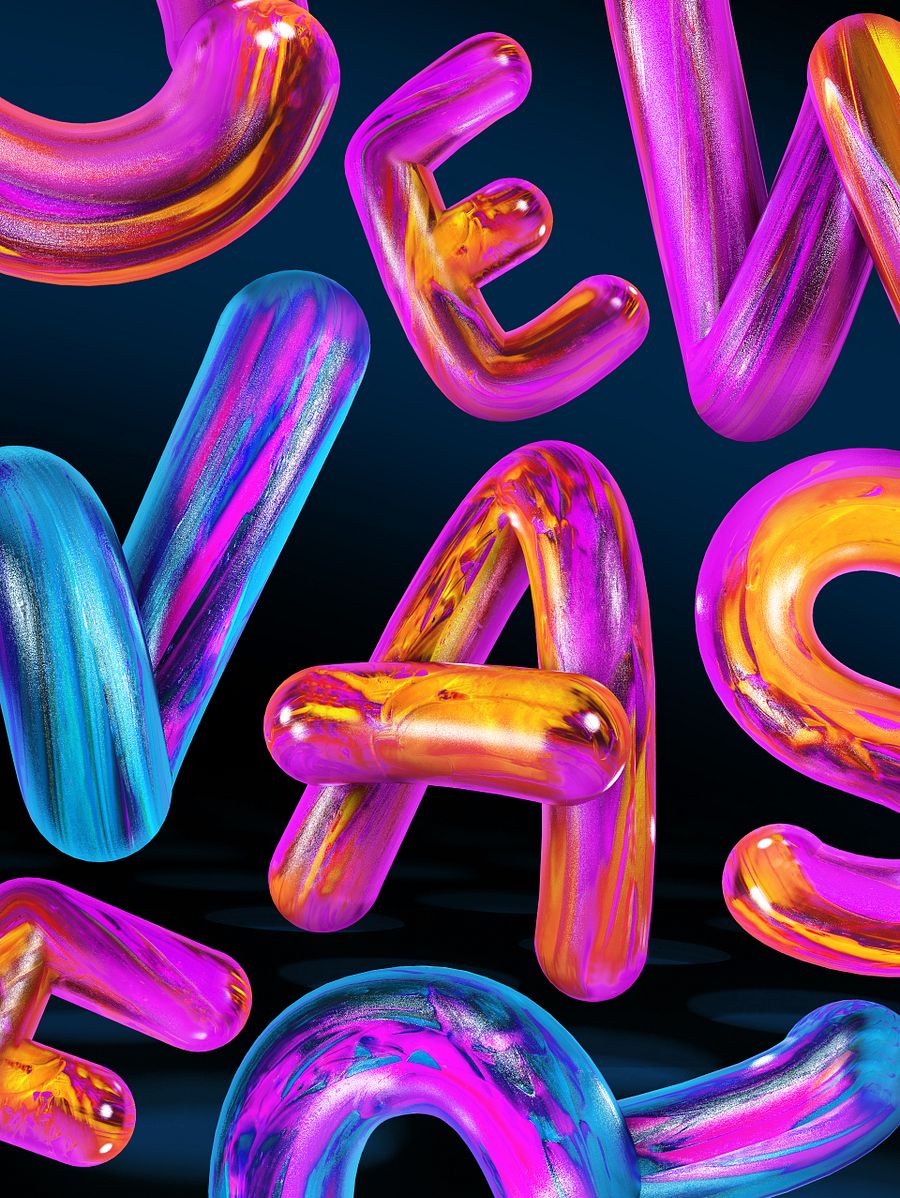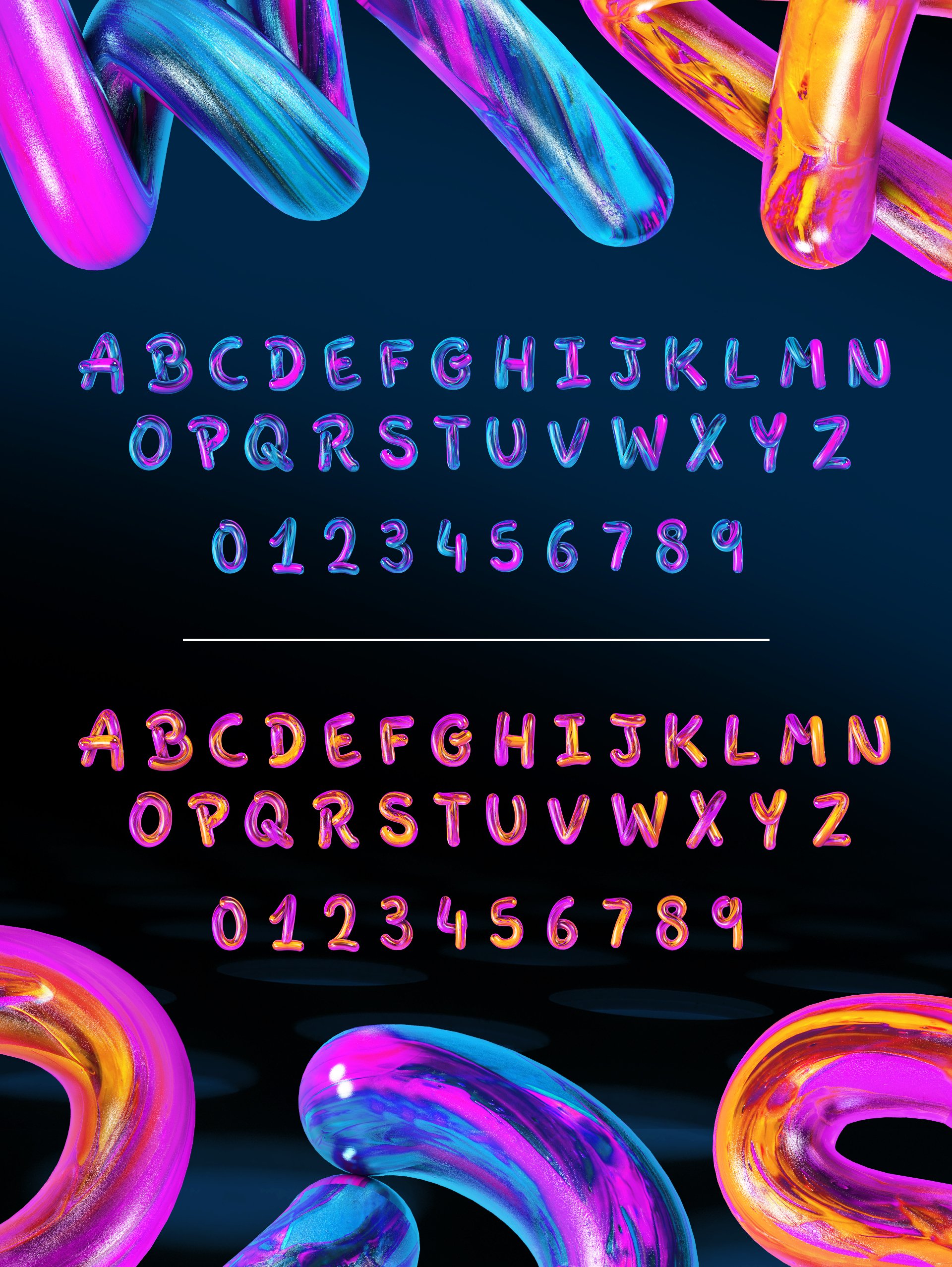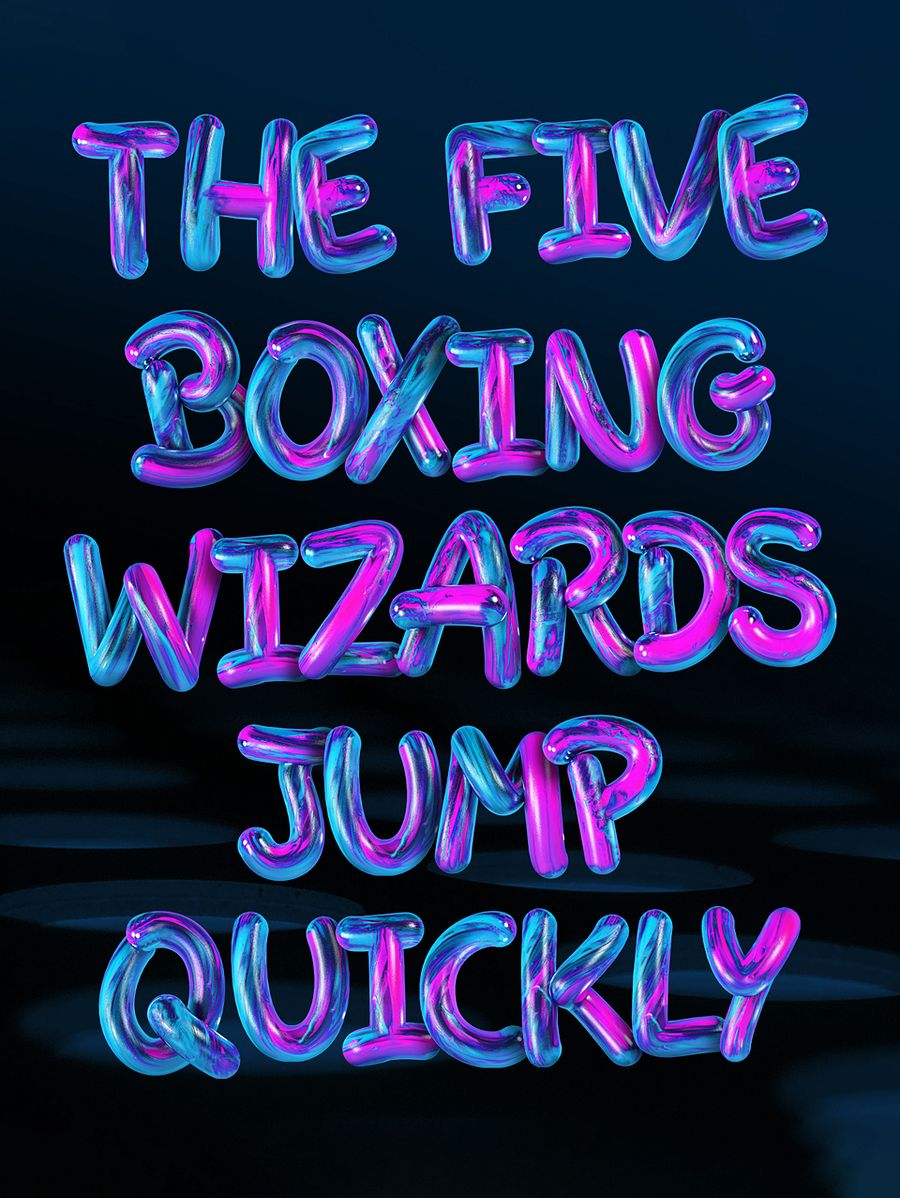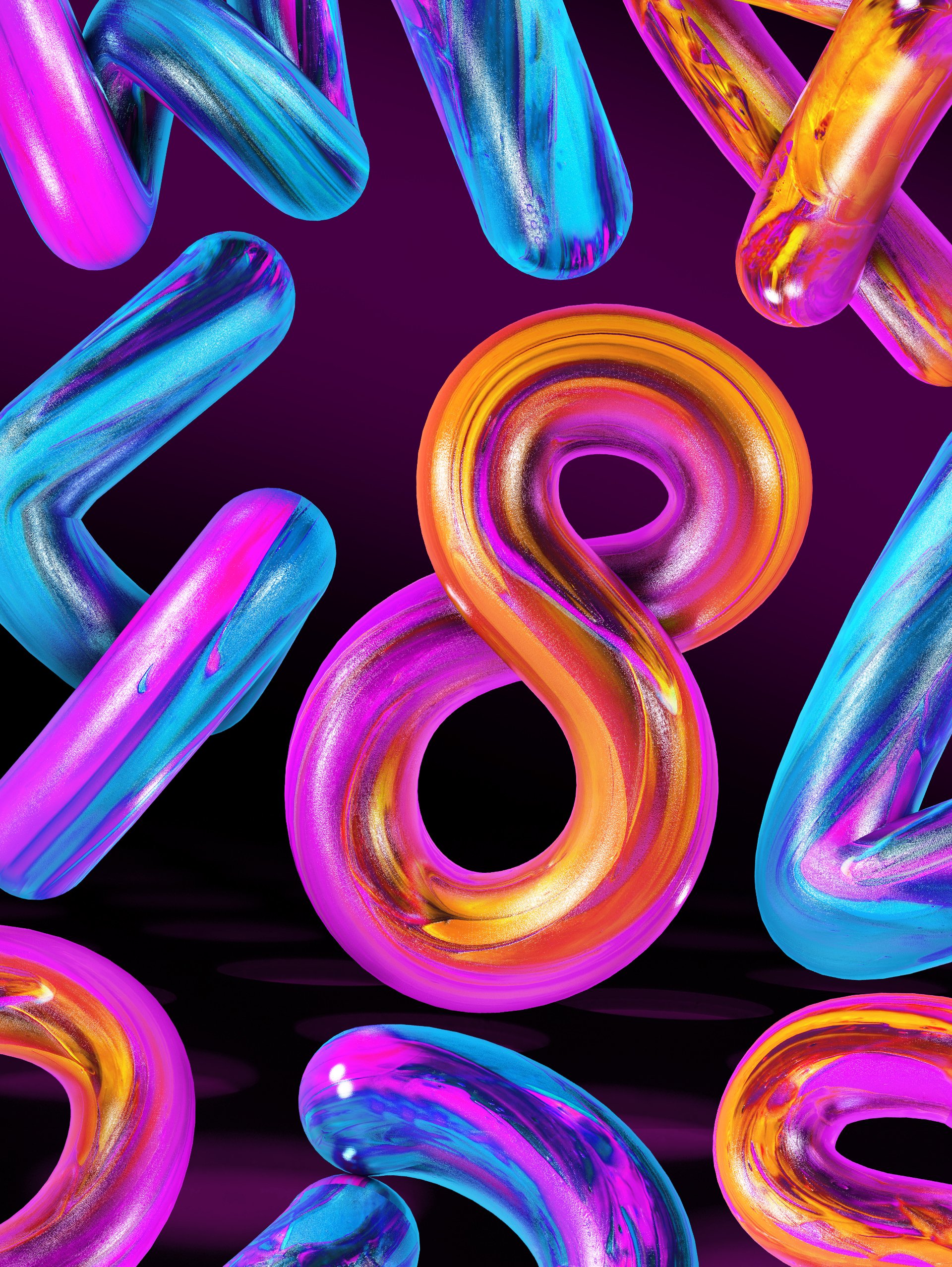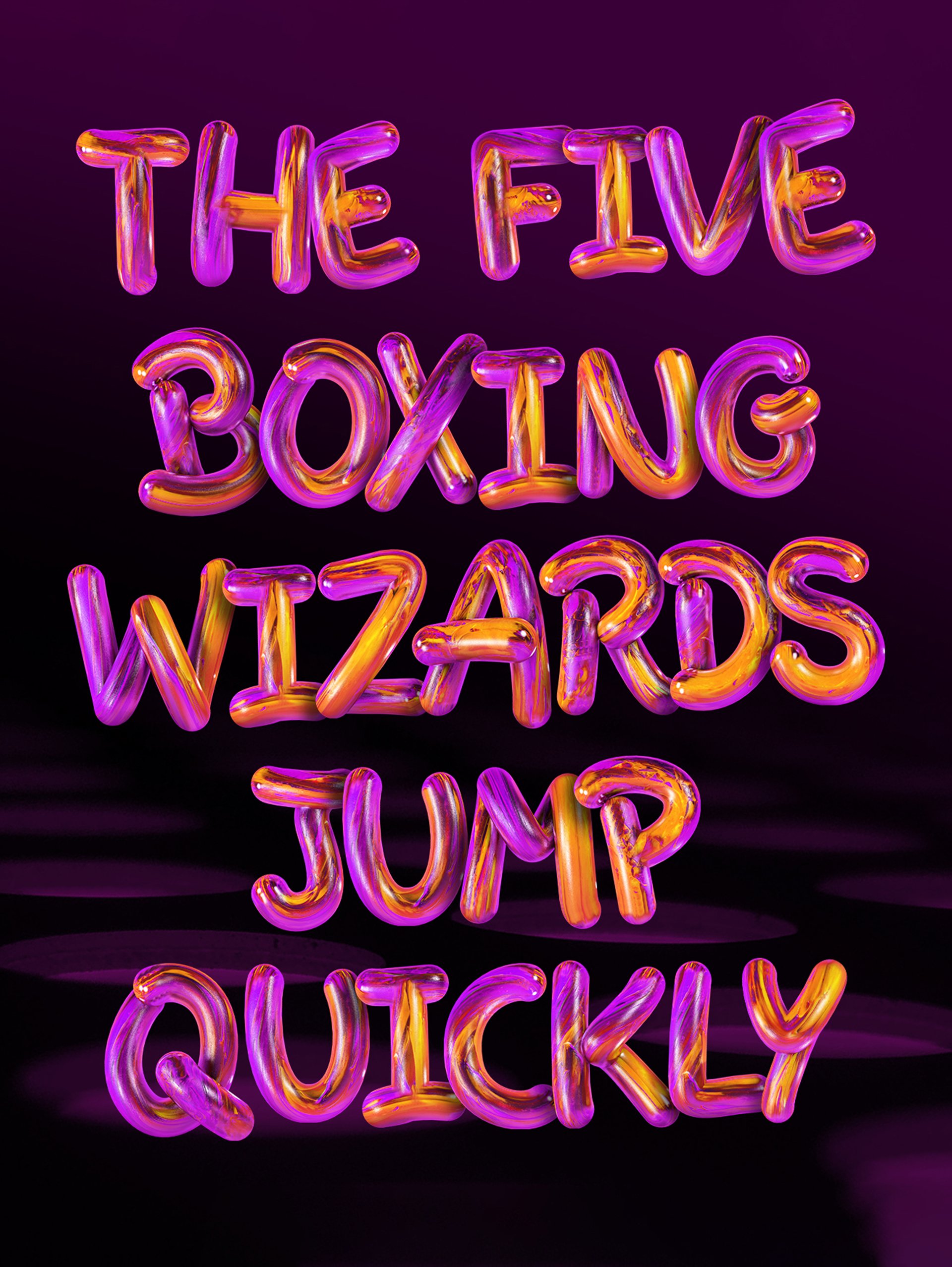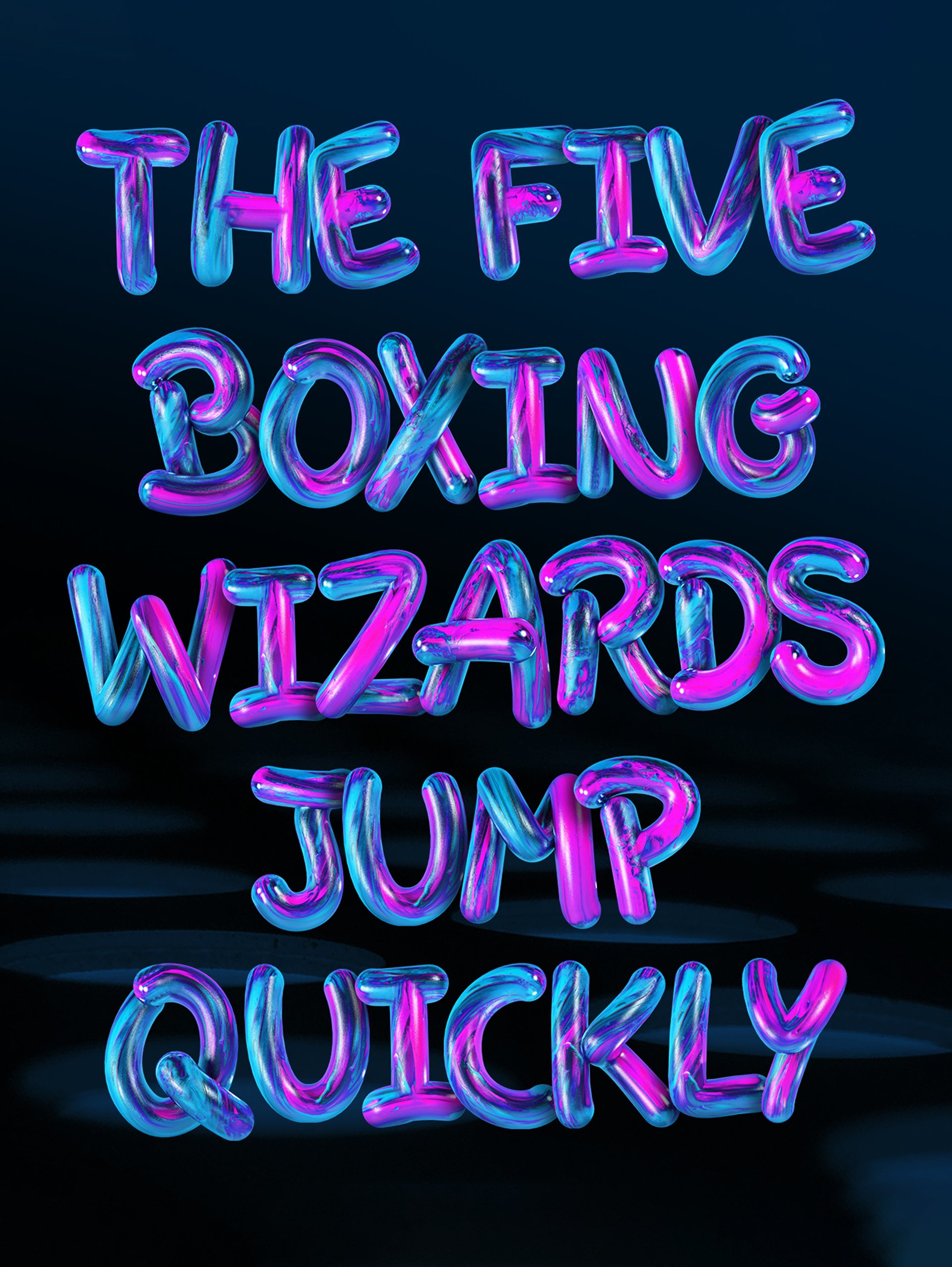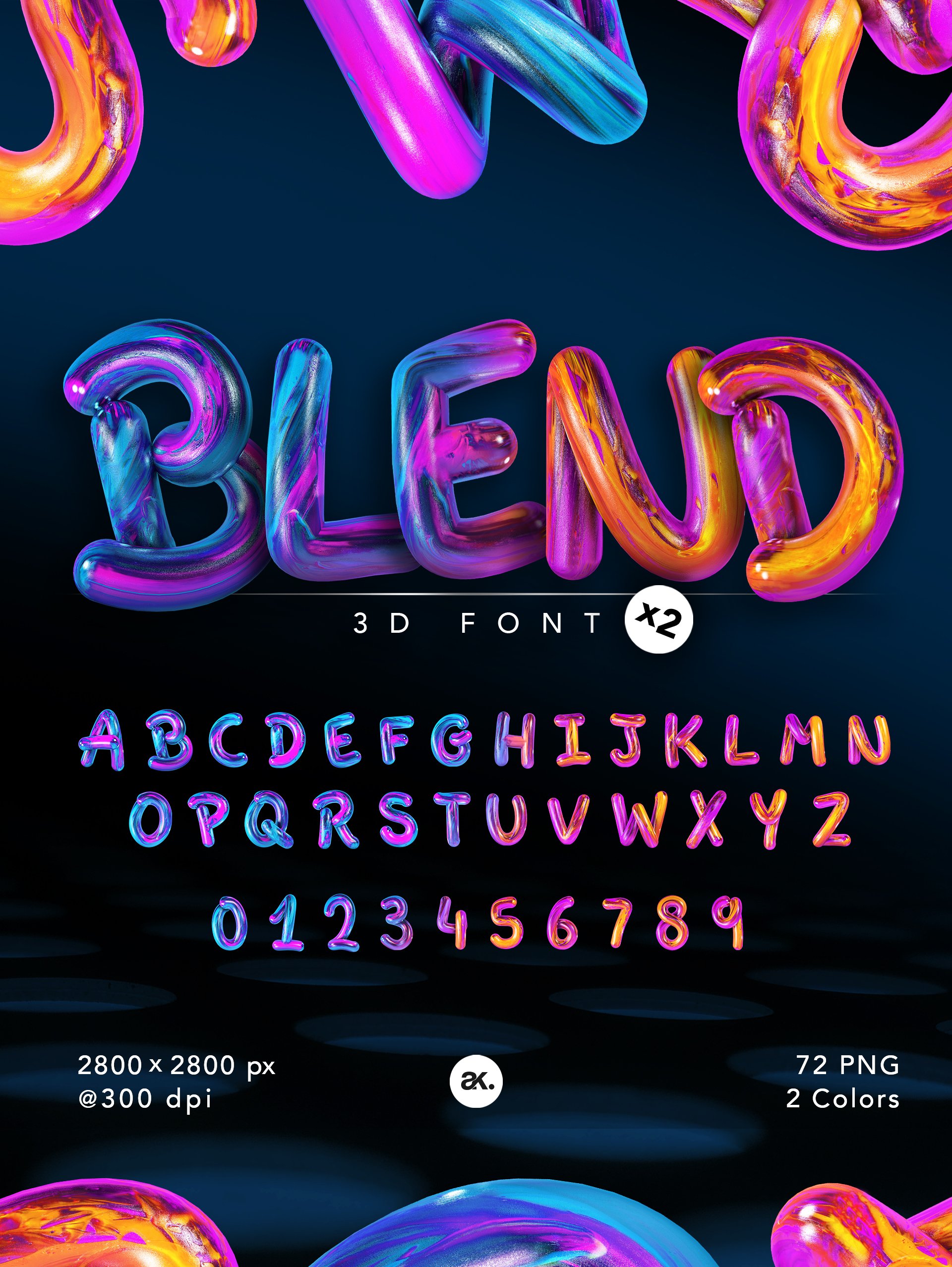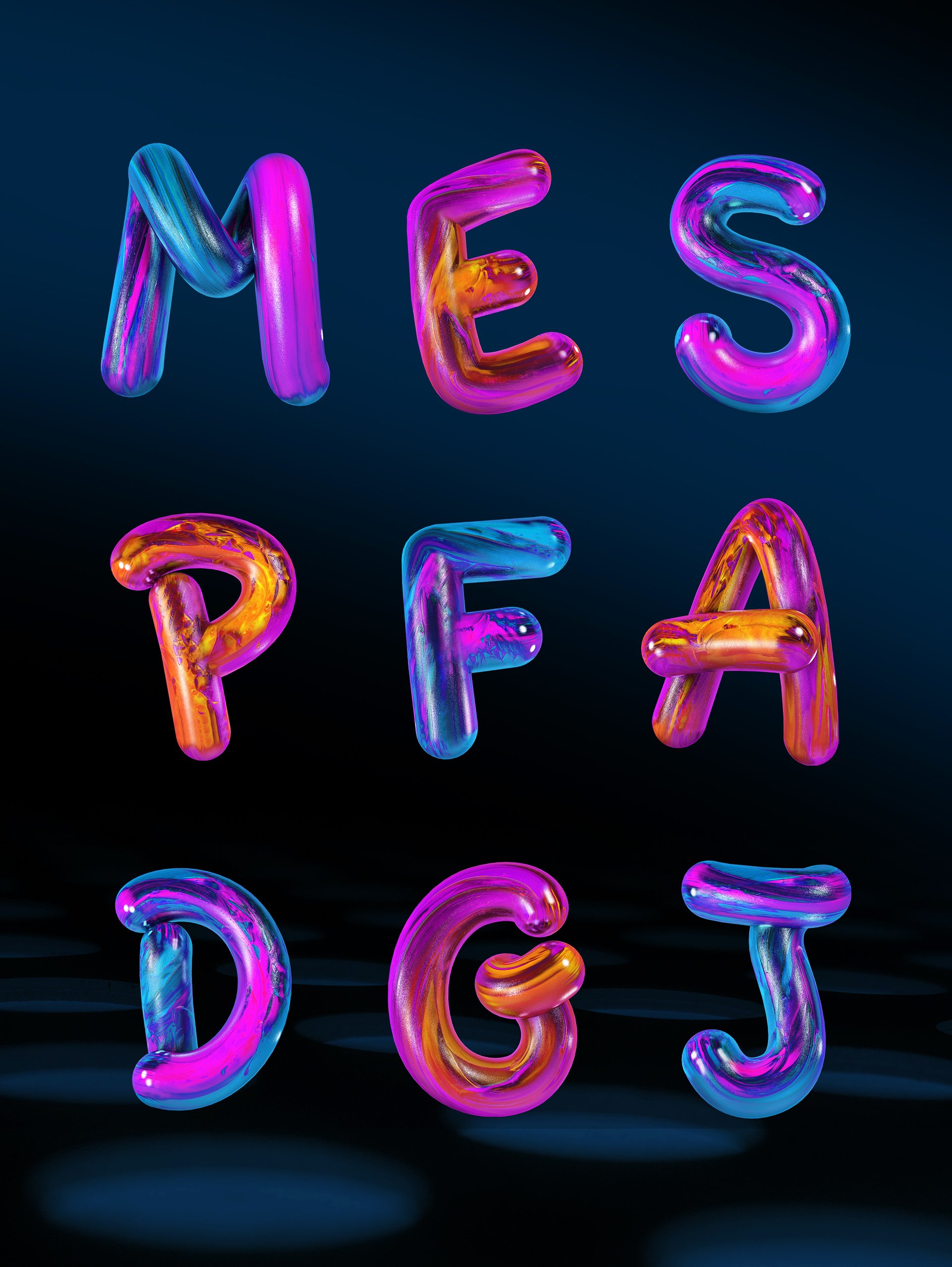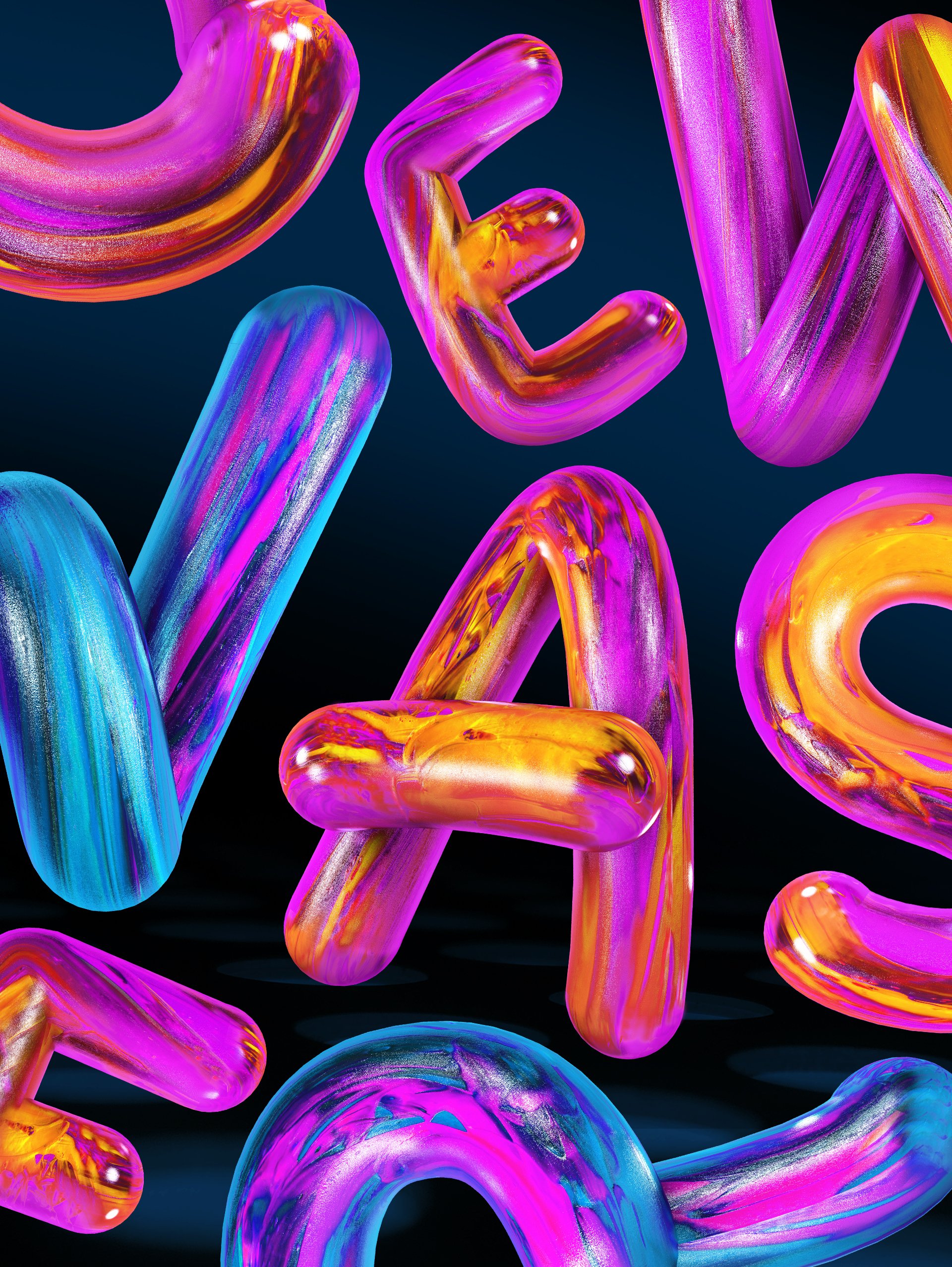
Blend 3D Font
3D Font in high-res PNGs in 2 colors.
Blend is a 3D font designed in real 3D software using blended materials to produce high contrast and vibrant colors.
It covers all uppercase letters of the English alphabet as well as all numbers, in two different colors, each with a transparent background. The font can be used for both personal and commercial projects.